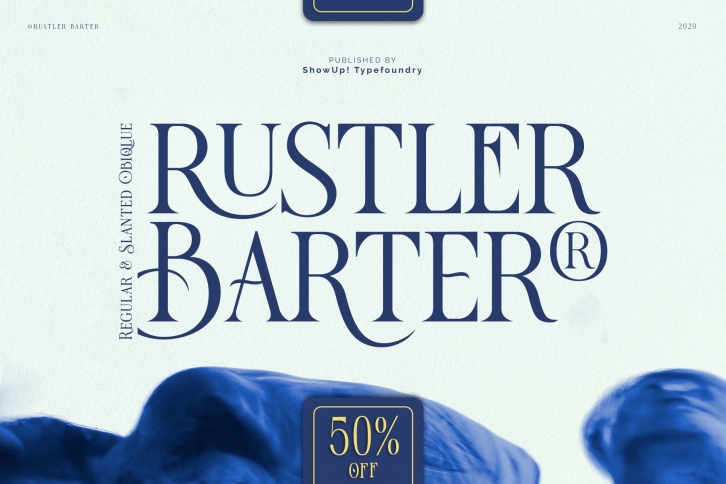
Rustler Barter is a beautiful font that was designed by Aulia Rahman. It's a great choice for designers and creatives who need such a font. It was released on June 13, 2020 and the file size is 11.10 MB. Rustler Barter may give a more youthful, expressive and casual look to your project. It is a very beautiful, refined, elegant, and high-quality font.